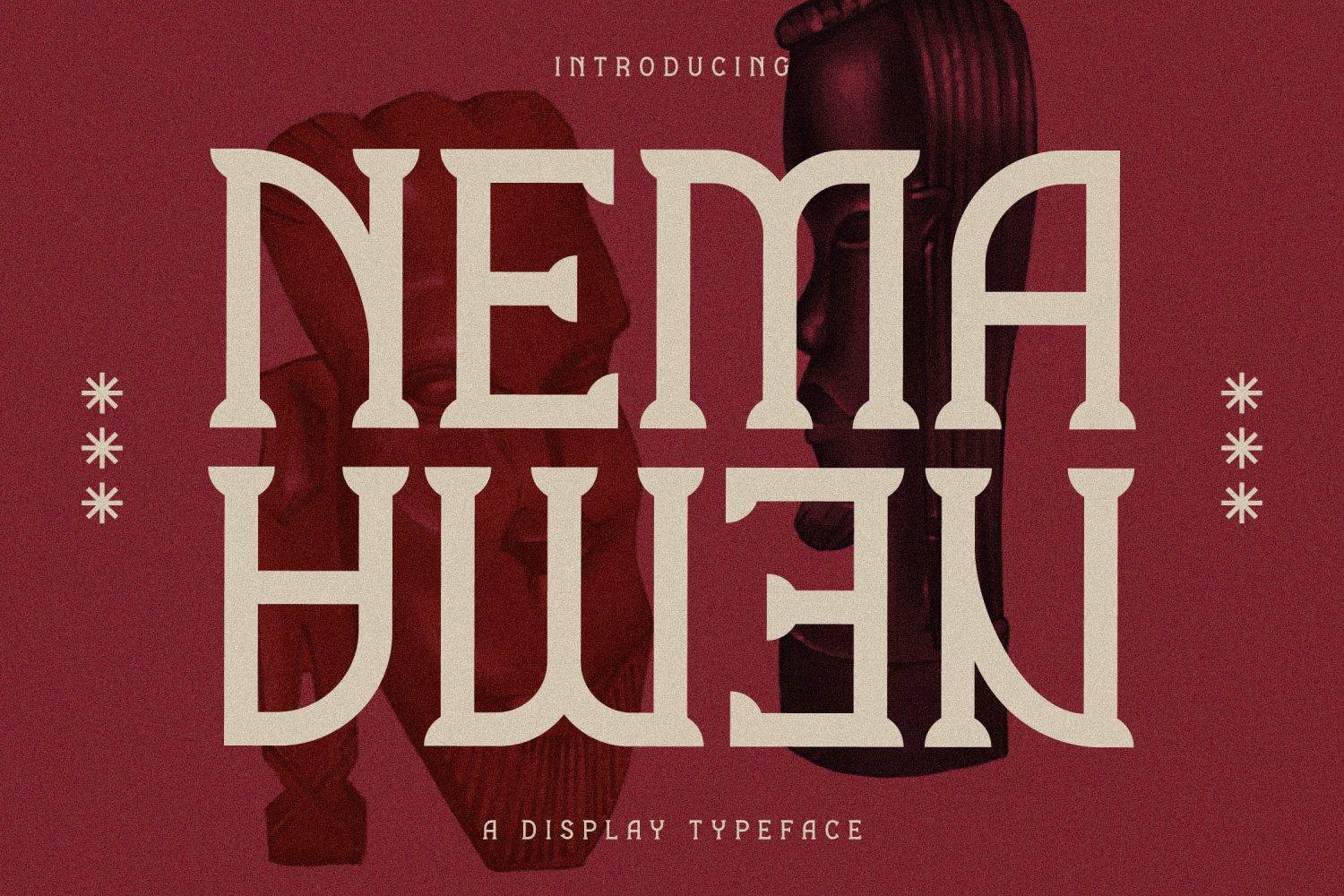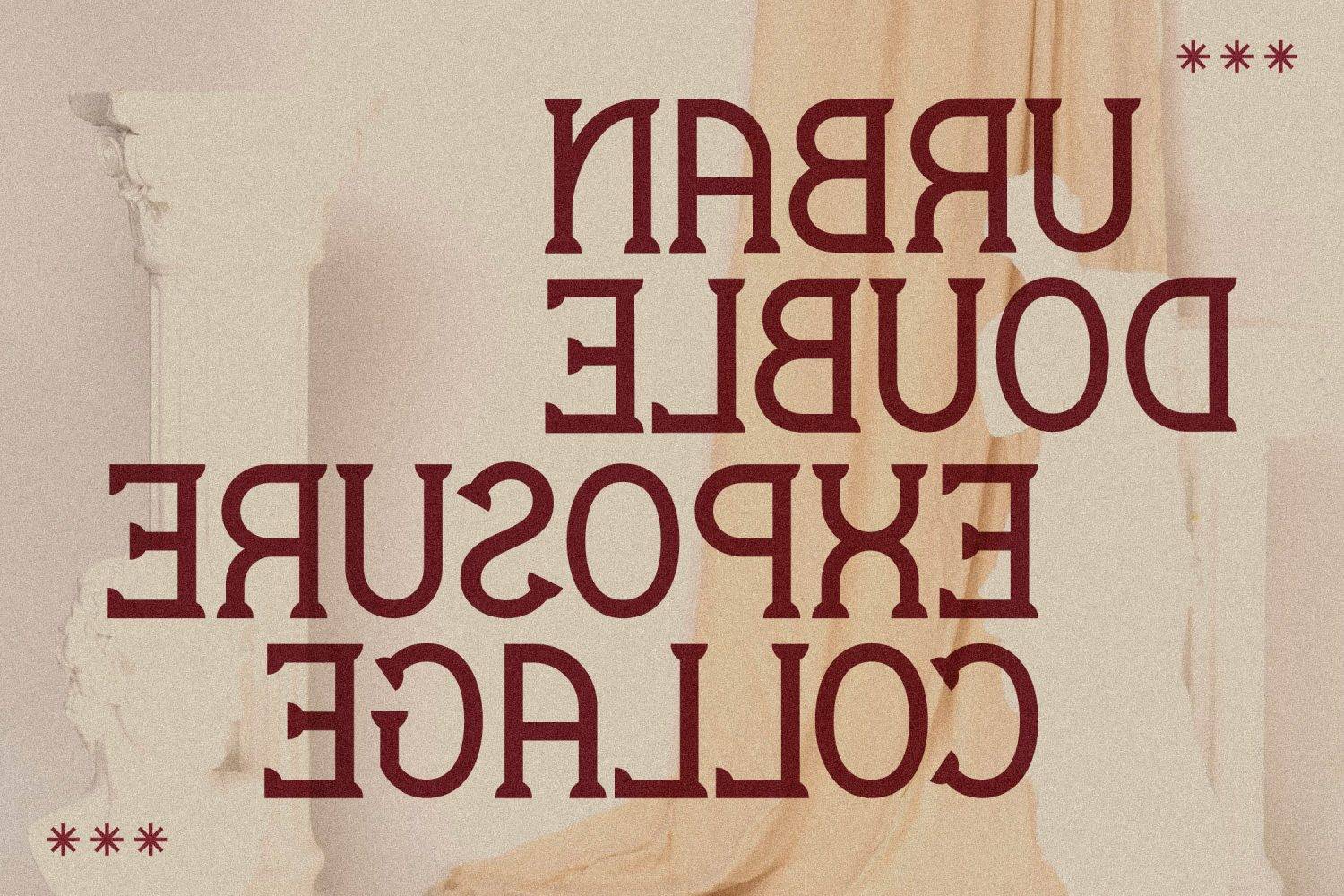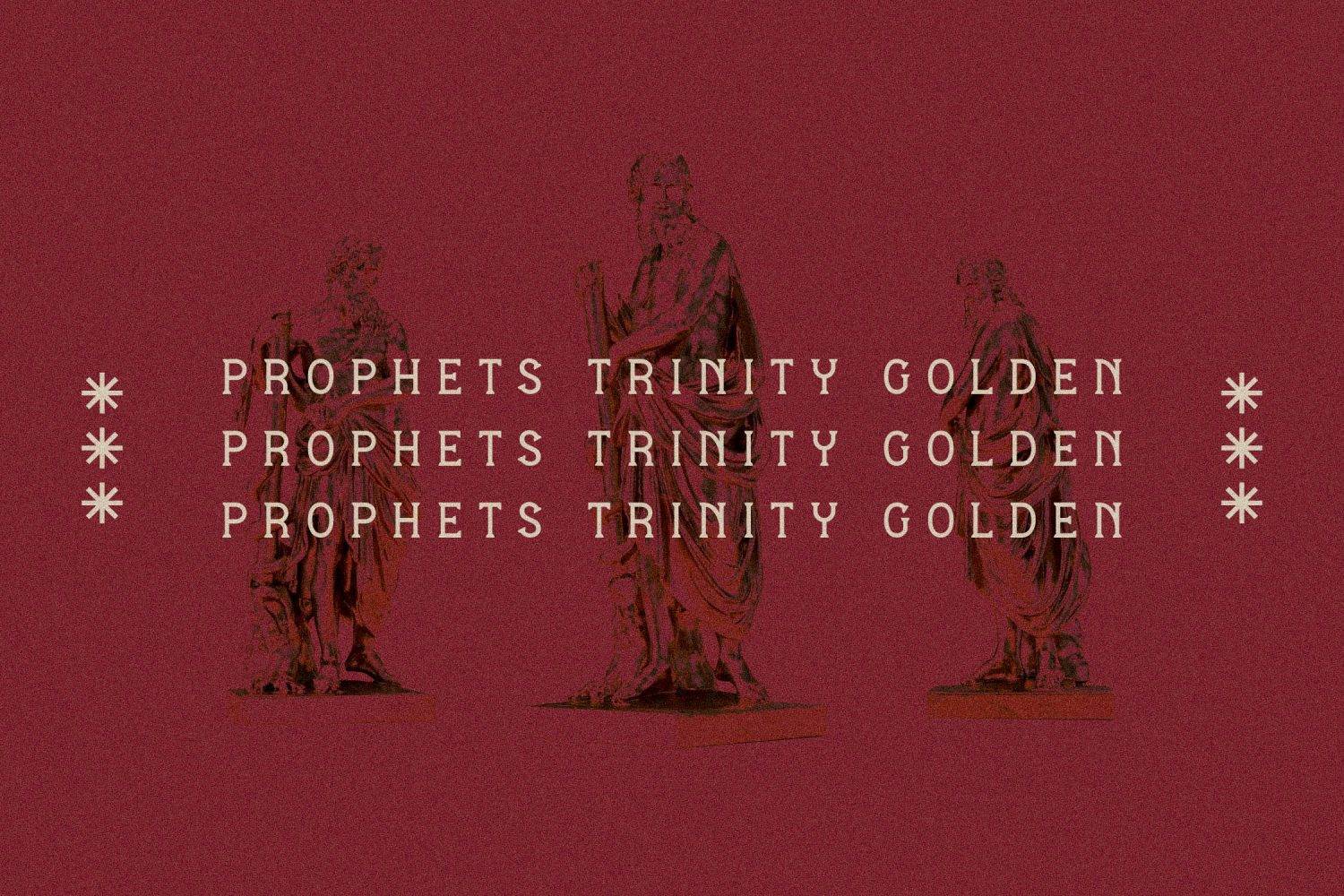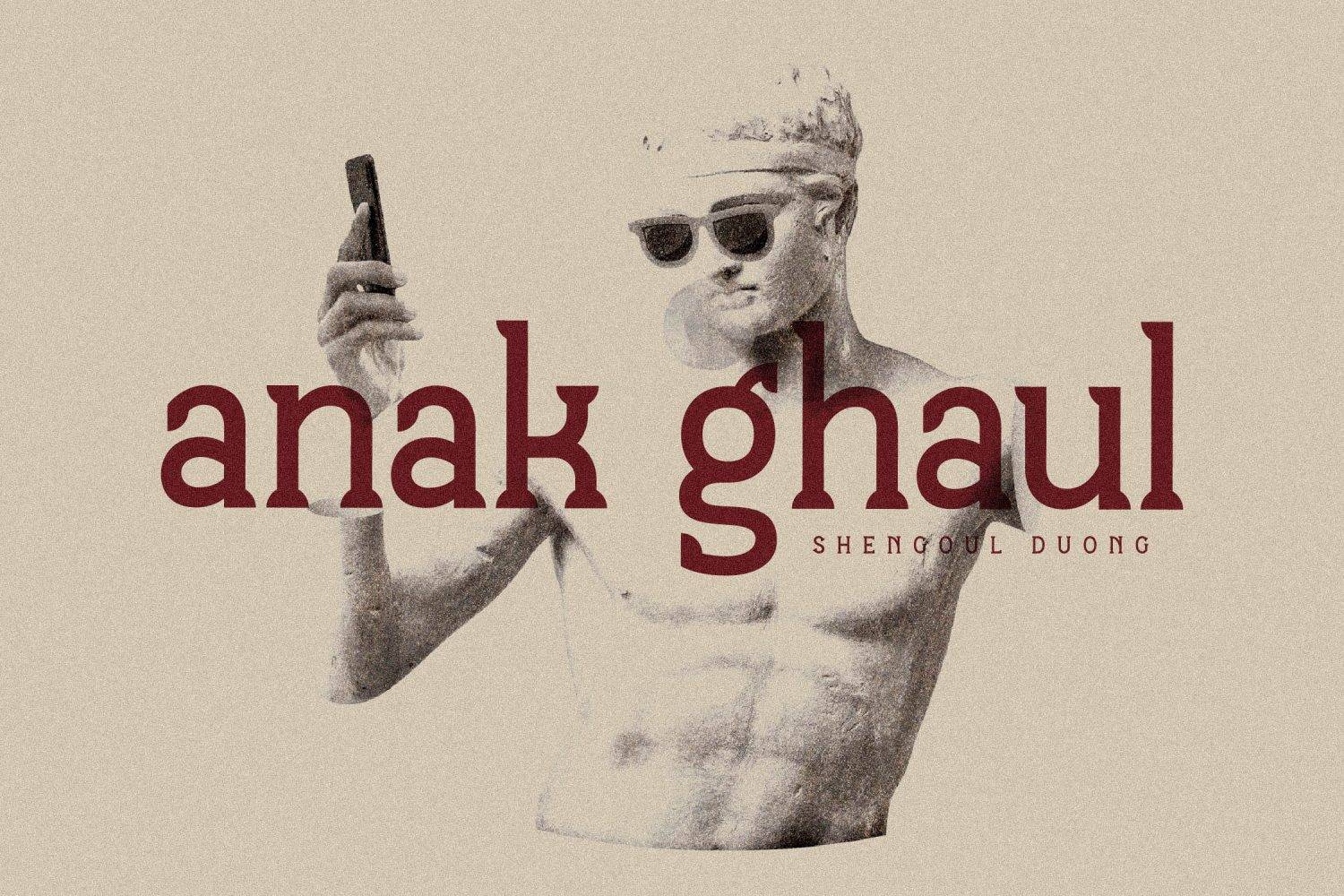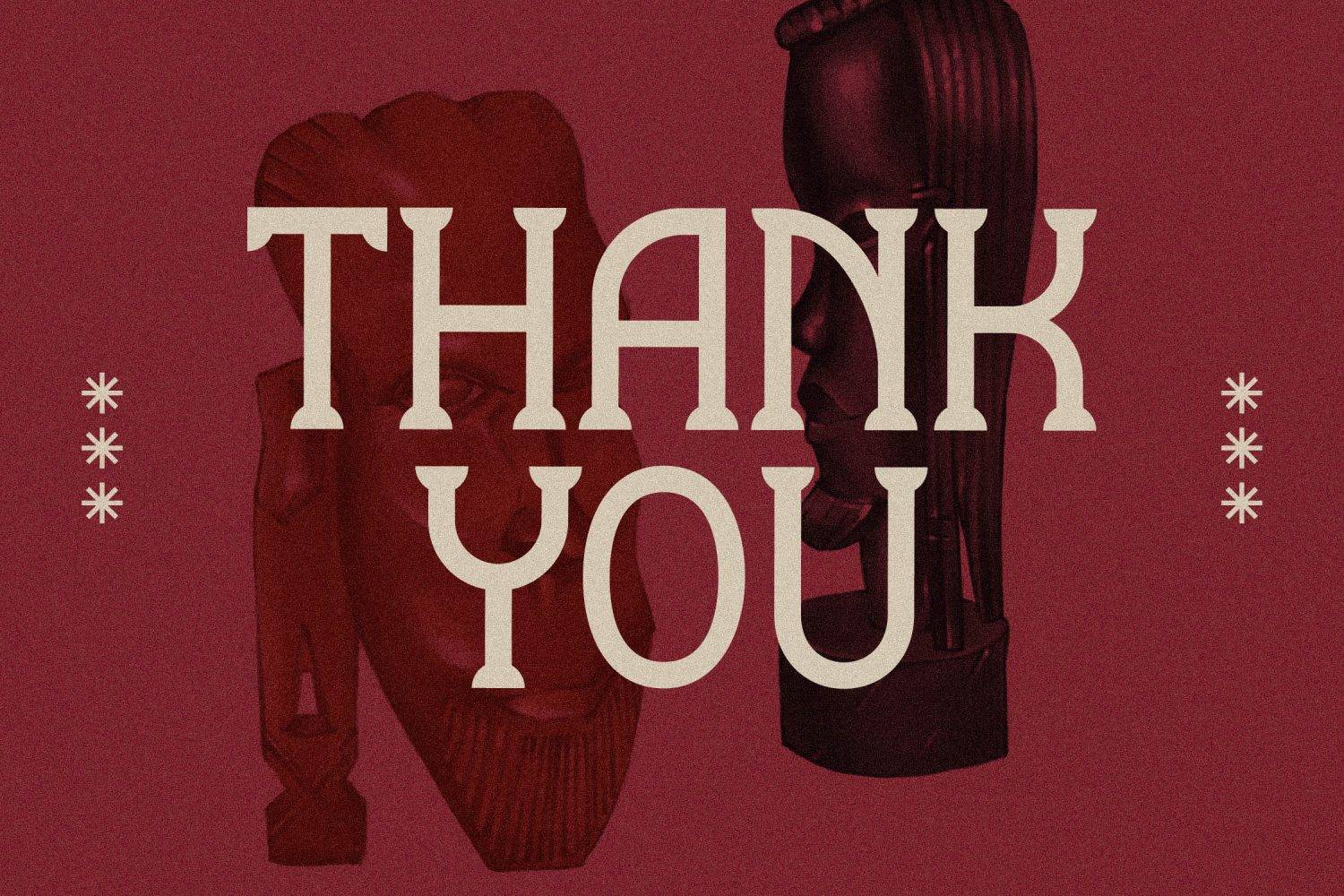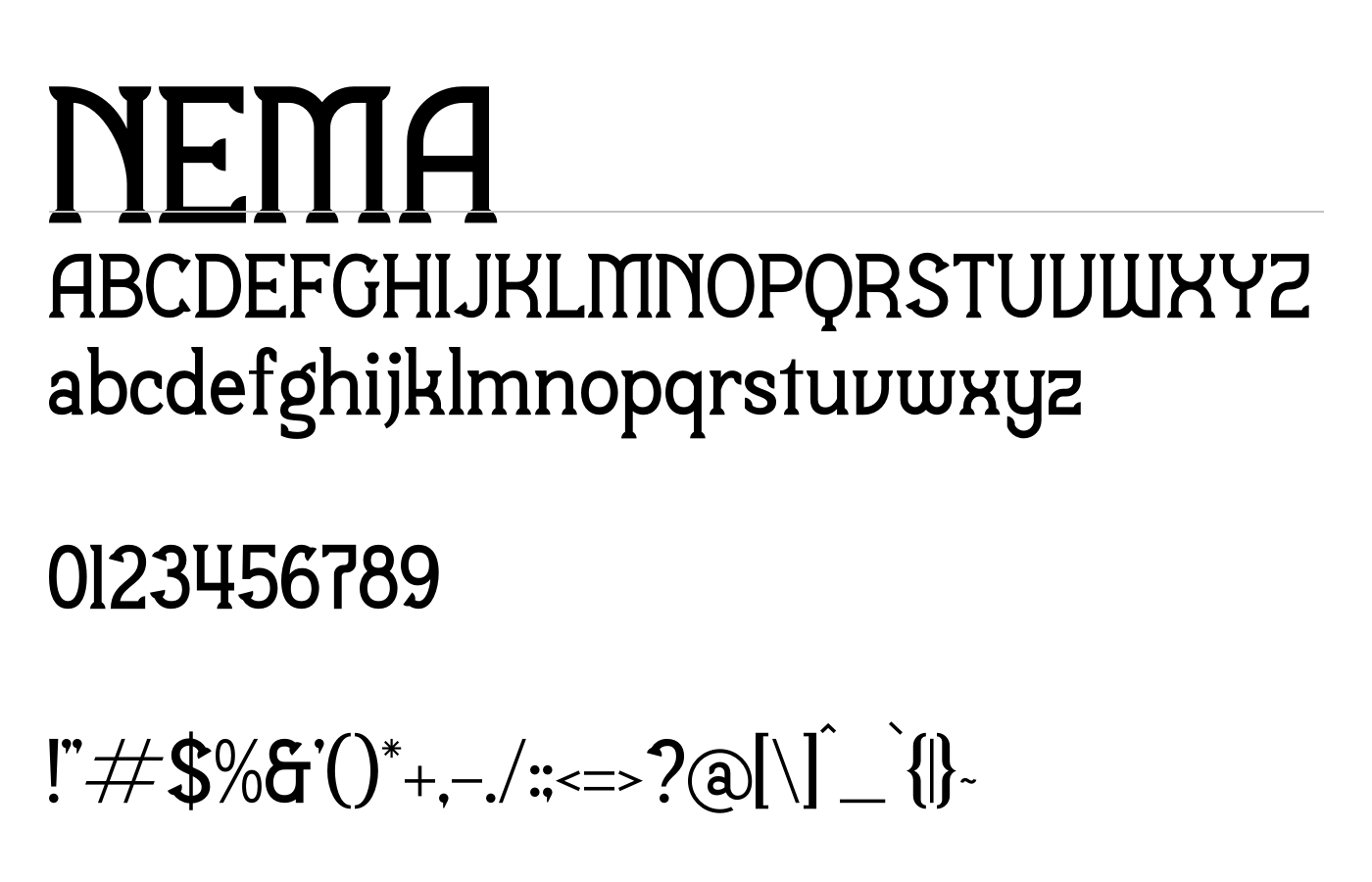
Nema is a distinctive serif font with a modern, almost vintage flair, characterized by its high contrast between thick and thin strokes and unique bracketed serifs. Its tall, narrow letterforms and quirky details, such as the unusual shapes of letters like Q and R, give it a refined yet playful personality, making it ideal for stylish branding, editorial headlines, and creative projects that want to balance elegance with a touch of individuality. This font works well where standout, sophisticated typography is needed to capture attention and convey a sense of character.
Nema Font
About Nema Font